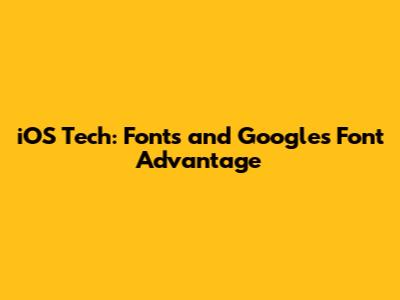
Hey there, fellow tech enthusiasts! Today, we're diving deep into the fascinating world of iOS tech, specifically focusing on how fonts play a crucial role and how Google fonts can be a game-changer. I know, fonts might not sound as exciting as the latest iPhone launch, but trust me, they're the unsung heroes of design and user experience. Ever wondered why some apps just feel more polished than others? A lot of it comes down to smart font choices and how they're implemented. So, grab your favorite beverage, get comfy, and let's unravel the secrets of iOS fonts and the awesome power of Google.
The Significance of Fonts in the iOS Ecosystem
Alright, let's kick things off by understanding why fonts even matter in the grand scheme of iOS tech. Think about it – every app you use, every website you visit on your iPhone or iPad, it's all built upon text. That text needs to be readable, aesthetically pleasing, and consistent. That's where fonts come in. They're more than just letters on a screen; they're a fundamental element of visual communication and user interface design. iOS developers and designers pour a lot of thought into selecting the right fonts because they directly impact how users perceive an app or website. A well-chosen font can make an app feel modern, professional, friendly, or even playful. Conversely, a poorly chosen font can make an app look dated, unprofessional, or just plain difficult to read, which can frustrate users. This can lead to a bad user experience. In the iOS world, a smooth user experience is everything. It is what users expect from Apple's ecosystem, and the same goes for apps and websites. In the realm of user interface (UI) and user experience (UX) design, fonts are instrumental in creating a cohesive visual language. They shape how information is presented, how users interact with the interface, and how they perceive the brand. Think about the fonts used by some of the most popular apps. You can tell the brand just by looking at the font, from the sleek and modern fonts of Instagram to the friendly and approachable fonts of Pinterest. These fonts are carefully selected to create a consistent brand identity. This consistency is essential for building brand recognition and trust. Fonts also play a role in accessibility. Legible fonts are critical for users with visual impairments. Developers need to choose fonts that are easy to read at various sizes and on different screen resolutions, and should also ensure that apps support dynamic type, so users can adjust font sizes to suit their needs. Good fonts, good user experience. When a developer gets it right, the app is great.
Moreover, fonts are tightly integrated into the iOS system itself. Apple provides a range of system fonts, like San Francisco, which is the default font on most iOS devices. This creates a unified look and feel across all iOS apps, contributing to a consistent user experience. However, developers are not limited to system fonts; they can also use custom fonts to personalize their apps. This is where Google fonts come into play, offering a vast library of free, high-quality fonts that can be easily integrated into iOS projects. This opens up a world of possibilities for designers and developers, allowing them to create unique and visually appealing apps that stand out from the crowd. So, whether you are a seasoned iOS developer or a newbie, understanding the importance of fonts and how to effectively use them is essential for creating successful, user-friendly apps.
Exploring Google Fonts for iOS Development
Now that we've established the significance of fonts in iOS tech, let's delve into the treasure trove that is Google Fonts. Google Fonts is a free library of over 1,000 font families, all available for use in commercial and personal projects. It's a goldmine for iOS developers, offering a diverse range of fonts, from elegant serifs to modern sans-serifs, all optimized for web and mobile use. Google Fonts is easy to use and it is constantly updated with new fonts. This makes it an invaluable resource for designers. Accessing Google Fonts is a breeze. Just visit the Google Fonts website, browse the library, and select the fonts you want to use. You can filter the fonts by categories, such as serif, sans-serif, display, and handwriting, making it easy to find the perfect font for your project. You can also filter the fonts by properties like thickness, width and slant, making the selection process a lot more convenient. Each font family comes with a variety of styles and weights, allowing for customization. Once you've chosen your fonts, you can download them or get the CSS and HTML code required to implement them on your website. Implementing Google Fonts in your iOS app involves a few steps. First, you need to download the font files (typically in TTF or OTF format). Then, you'll need to add them to your project in Xcode. In your app's info.plist file, you'll need to declare the font files, specifying their names. Finally, you can use the fonts in your app's UI elements, such as labels and text fields, using the font names. The implementation is done within Xcode, which is the Integrated Development Environment (IDE) that is part of the iOS software development kit (SDK). While you have a lot of control on the fonts that you choose, the key to successful font implementation is testing. Always test your chosen fonts on different iOS devices and screen sizes to ensure they render correctly and maintain their visual integrity. This includes testing on older devices. This will give you the best user experience.
Google Fonts offers several advantages for iOS development. First and foremost, the fonts are free, saving developers money. Secondly, the fonts are high-quality and optimized for web and mobile use, which ensures that they render well on iOS devices. Thirdly, Google Fonts has a wide variety of fonts, allowing developers and designers to create unique and visually appealing apps. Fourthly, Google Fonts is updated constantly with new fonts, allowing developers to always have the latest and greatest fonts available. Lastly, Google Fonts is easy to use, with comprehensive documentation and resources available online, and it also simplifies the design process. This helps make the development process much easier. When using Google Fonts, it's crucial to consider licensing. While the fonts are free to use, it is always a good idea to check the specific license for each font. You can usually find the license information on the Google Fonts website, next to each font family. Some fonts might have restrictions on their use, so be sure to read the terms carefully. This will help make sure that you are using the fonts in compliance with the licenses.
Best Practices for Font Integration and Design
Alright, now that we're familiar with Google Fonts and their potential in iOS tech, let's talk about the best practices for font integration and design. This is where you can take your app from good to great. First and foremost, it's essential to choose fonts that align with your app's brand and overall aesthetic. Think about the personality of your app and the message you want to convey. Do you want to convey a sense of professionalism, playfulness, or sophistication? Select fonts that reflect that. Don't just pick fonts randomly. Make sure you have a strategy in mind. Use a consistent font throughout your app. Using too many different fonts can make your app look cluttered and unprofessional. Stick to a primary font for body text and headings, and a secondary font for accents or emphasis. Font pairings can be a tricky endeavor. Experiment with different font combinations to find ones that complement each other. Consider using font pairing tools or resources to help you find harmonious combinations. These tools are available online and can help you create pairings that work well together. Balance readability and style. While it's tempting to choose fonts that are visually striking, always prioritize readability, especially for body text. Make sure that the font size is appropriate for the target audience. The font needs to be legible on all screen sizes, and the line height and letter spacing are adequate for comfortable reading. Test the fonts on different devices and screen resolutions to ensure readability across all devices. Consider the font weight and size. Bold or heavy fonts are great for headings, while lighter weights are better for body text. This helps create visual hierarchy, making it easier for users to scan and understand the content. Use font sizes that are appropriate for the target audience. Don't make the fonts too small. Think about the font weight. Consider the line height. Make sure that the content is spaced out correctly. Always prioritize accessibility. Design for users with visual impairments by using fonts that are easy to read and adjusting the font size. Ensure that your app supports dynamic type, so users can adjust the font size to their needs. You should provide users with the ability to choose between different fonts in your app. This way, you can personalize the app for users. Proper kerning and tracking are essential for visual appeal. Kerning is the adjustment of space between individual letter pairs, while tracking is the overall spacing between letters in a word or phrase. Make sure that the kerning and tracking are correct. Use kerning and tracking to ensure that text is visually balanced and easy to read. Be mindful of the length of text. Avoid using long blocks of text, as they can be overwhelming to the user. Break up the text into smaller, more manageable chunks. Using the right font will make your content more effective. Use headings and subheadings to create a clear structure. Use bullet points or numbered lists to make the content more easily digestible. Use negative space to separate the text and visual elements. Implement these best practices to create an amazing user experience.
Conclusion: Mastering Fonts in iOS and Google's Font Advantage
Alright, folks, we've covered a lot of ground today! From the fundamental importance of fonts in iOS tech and design to the awesome capabilities of Google Fonts and how to use them effectively, we've equipped you with the knowledge to make informed font choices. Remember, fonts are more than just text; they're a critical element of user experience, brand identity, and overall app appeal. By choosing the right fonts and implementing them with care, you can create iOS apps that are both beautiful and functional. When using Google Fonts, explore the vast library, consider the licensing terms, and take advantage of the variety of fonts that are available. Prioritize readability, consistency, and accessibility. Never underestimate the power of well-chosen and well-implemented fonts. Keep experimenting, keep learning, and don't be afraid to try new things. The world of fonts is vast and dynamic, with new fonts being released all the time. By staying updated on the latest trends and techniques, you will be able to master the art of fonts. With a little bit of creativity and attention to detail, you can create apps that not only look amazing but also provide a seamless and enjoyable user experience. So, go forth and create beautiful iOS apps that stand out from the crowd! And remember, the right font can make all the difference. Keep these best practices in mind, and you will be on your way to creating stunning apps. Happy designing! Thanks for joining me on this deep dive into the world of iOS fonts and the power of Google Fonts. Until next time, keep coding, keep creating, and keep those fonts looking fantastic!